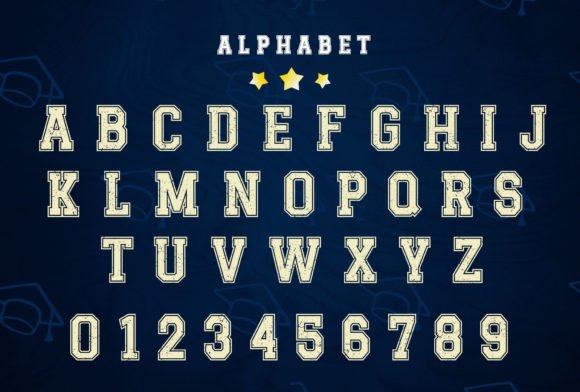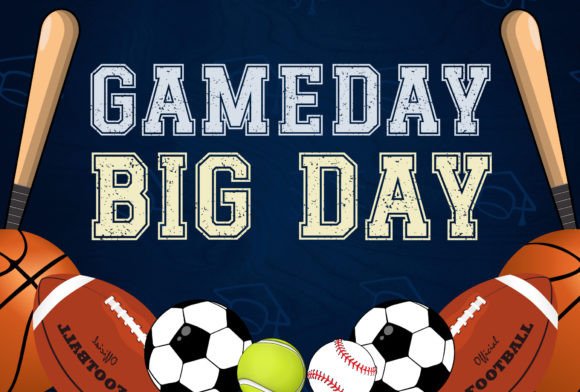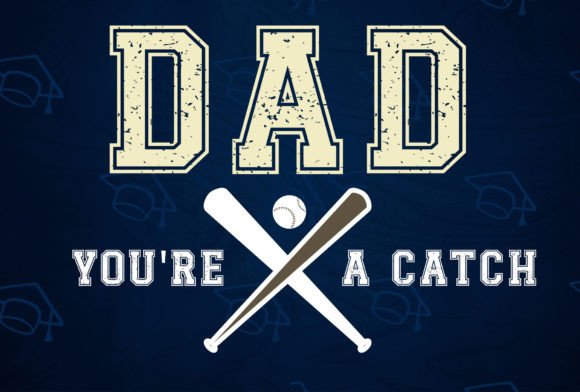
Graduation Grunge Font
Graduation Grunge is a bold and assertive college slab serif font. No matter the topic, this font will be an incredible asset to your fonts' library, as it has the potential to elevate any creation.